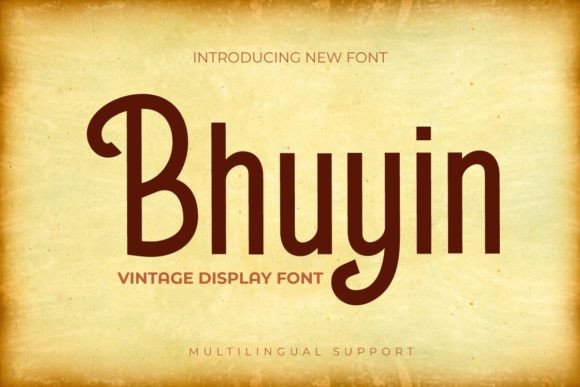
Welcome to the World of One-of-a-Kind Typography: Bhuyin Font
Are you tired of using the same old fonts for your design projects? Look no further! Introducing Bhuyin, a display typeface that is sure to take your designs to the next level. With its unique sense of design, Bhuyin is the ideal choice for anyone looking to add a bold and distinct style to their visual design tasks.
What Sets Bhuyin Apart?
Bhuyin is not just another font – it’s an experience. Its attributes are truly fantastic, making it a standout in the world of typography. One of the key features that sets Bhuyin apart is its ligatures and alternatives. With these available, you can express yourself in an infinite number of ways, creating one-of-a-kind letter combinations that lend a personal touch to any project.
Imagine being able to create unique and personalized designs that capture the essence of your brand or message. With Bhuyin, this is now possible. The font’s ligatures and alternatives allow you to experiment with different combinations, creating a distinct look that sets you apart from the crowd. Whether you’re a designer, craftsperson, or simply someone who appreciates the art of typography, Bhuyin offers endless creative possibilities.
Global Reach
In today’s digital age, communicating with a global audience is crucial. That’s why Bhuyin supports multiple languages, ensuring that your message is clearly and successfully delivered to individuals all around the world. No matter where your audience is located, Bhuyin helps you connect with them in a meaningful way.
Take Your Designs to the Next Level
Are you ready to elevate your designs and make them unforgettable? Bhuyin is here to help. With its bold and distinct style, Bhuyin turns every design into a work of art. Whether you’re working on a branding project, creating a poster, or designing a website, Bhuyin is the perfect choice.
Why Choose Bhuyin?
- Unique Design: Bhuyin boasts a totally unique sense of design that sets it apart from other fonts.
- Ligatures and Alternatives: With ligatures and alternatives available, you can create one-of-a-kind letter combinations that add a personal touch to your designs.
- Multi-Language Support: Bhuyin supports multiple languages, ensuring that your message reaches a global audience.
- Endless Creative Possibilities: Bhuyin’s ligatures and alternatives offer endless creative possibilities, allowing you to experiment with different combinations and create a distinct look.
In conclusion, Bhuyin is more than just a font – it’s a game-changer. Its unique design, ligatures, and alternatives make it the perfect choice for designers, craftspersons, and anyone looking to add a bold and distinct style to their visual design tasks. With its multi-language support and endless creative possibilities, Bhuyin is the ultimate tool for taking your designs to the next level. So why wait? Get Bhuyin now and start creating unforgettable designs that leave a lasting impression!